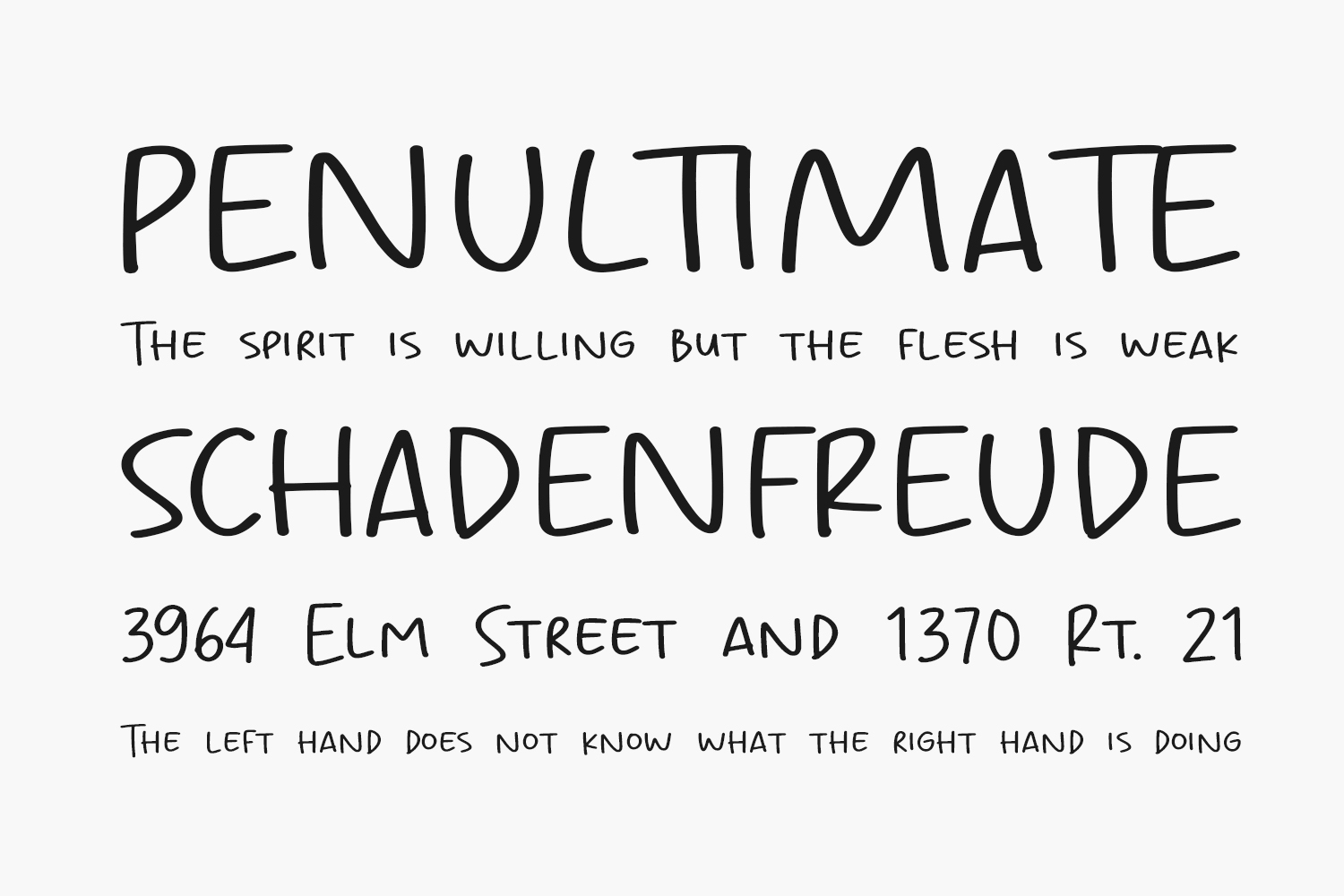
Chicola Smoothy Free Font is a cute and charming handwritten font that exudes a sense of warmth and simplicity. Its smooth and rounded letters have a playful and inviting quality that makes it perfect for designing invitations, greeting cards, and other projects that require a touch of personalization. The font’s simple yet elegant design makes it easy to read and adds a touch of elegance to any design. Whether you’re creating a logo, designing a website, or a social media post, Chicola Smoothy Free Font will add a touch of personality to your work. It’s perfect for any project that requires a friendly, playful and human touch. Download it now and add a touch of warmth to your designs.